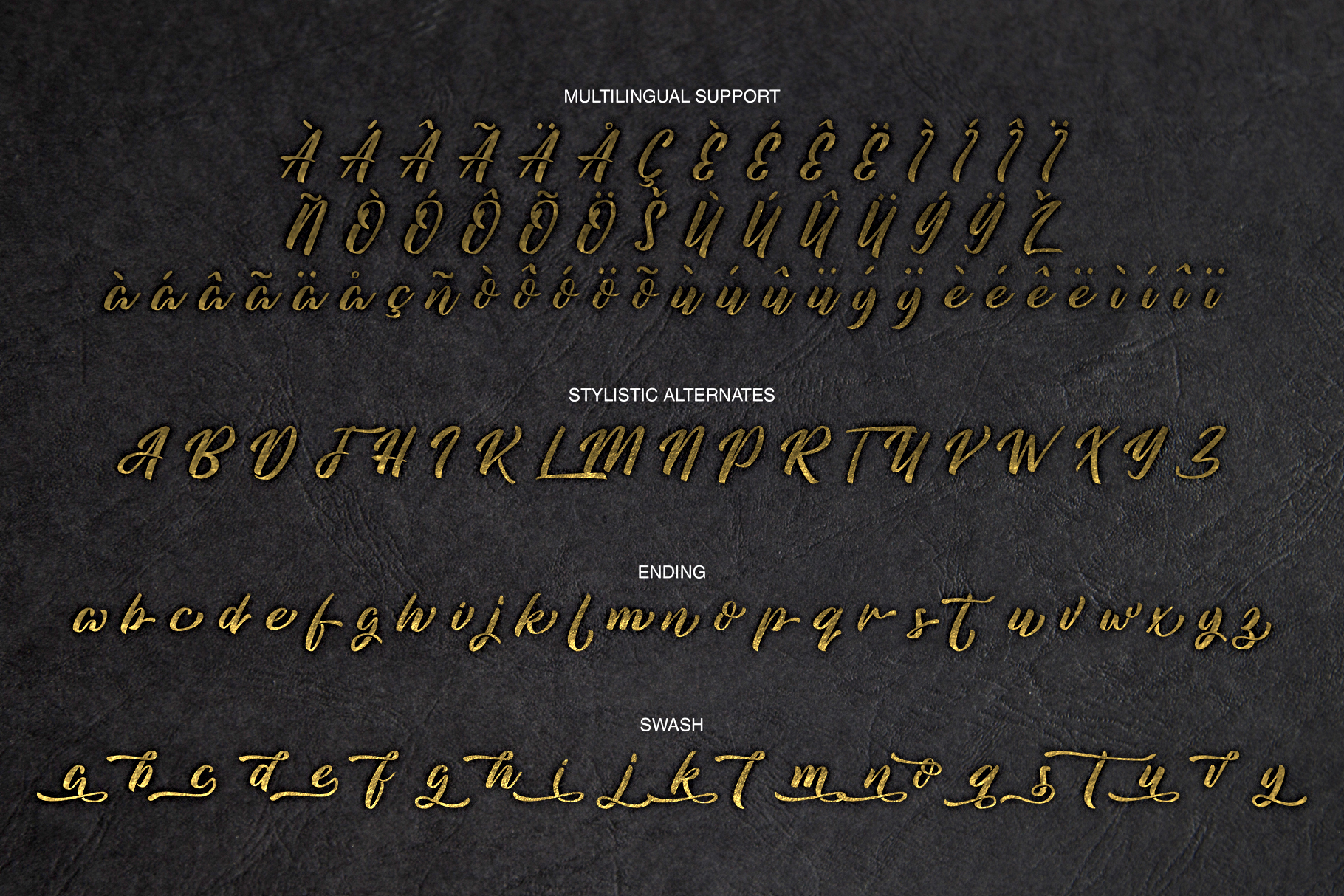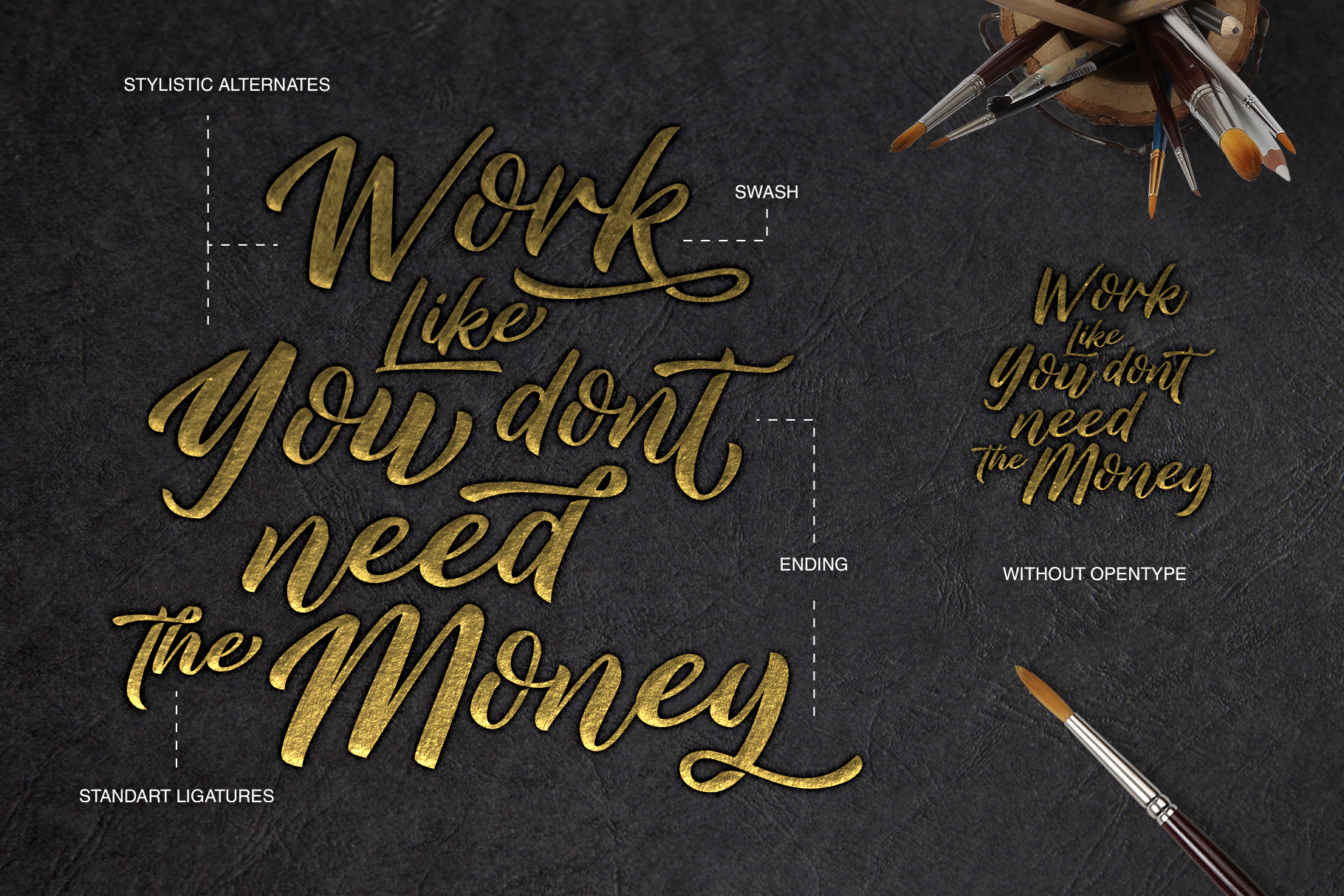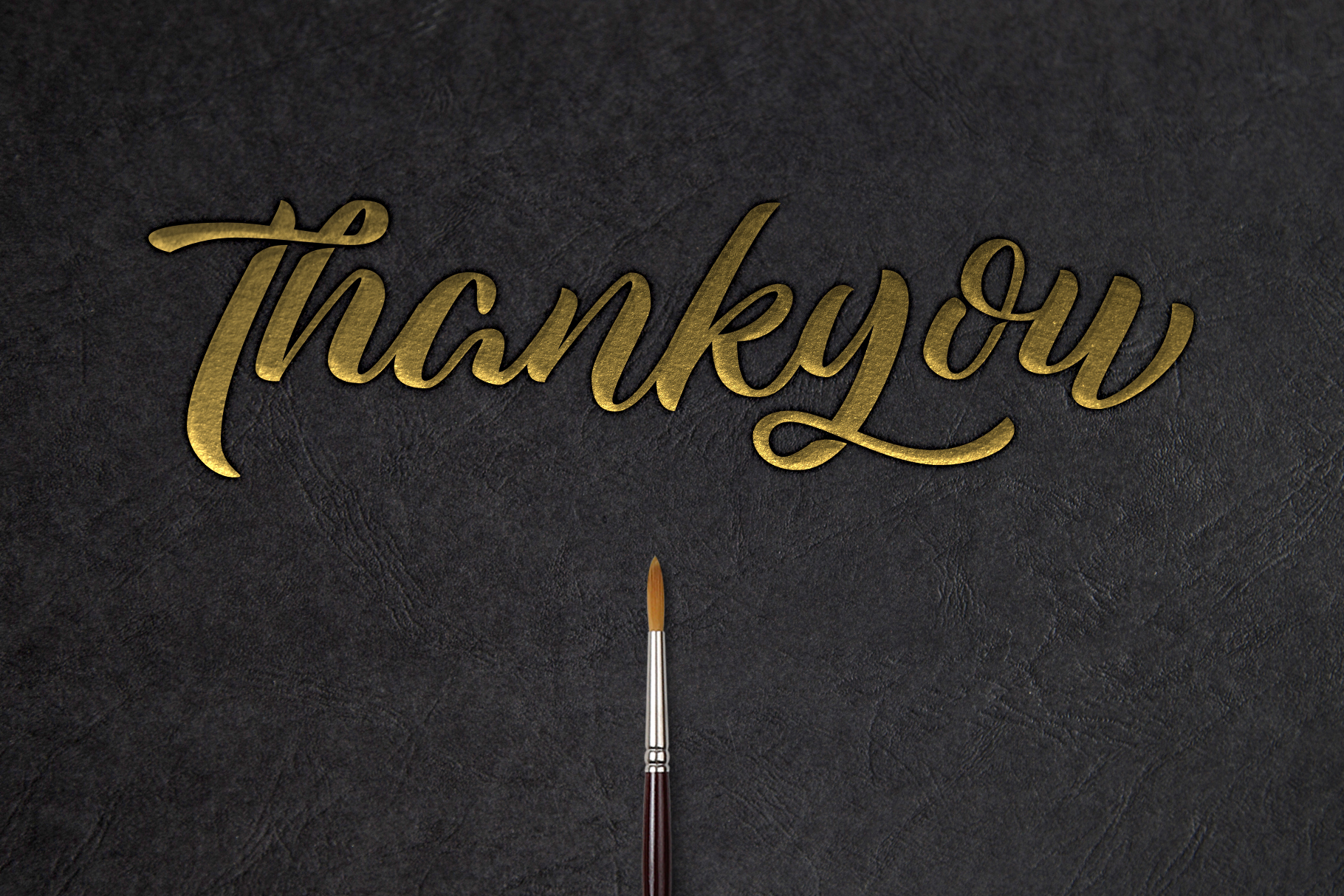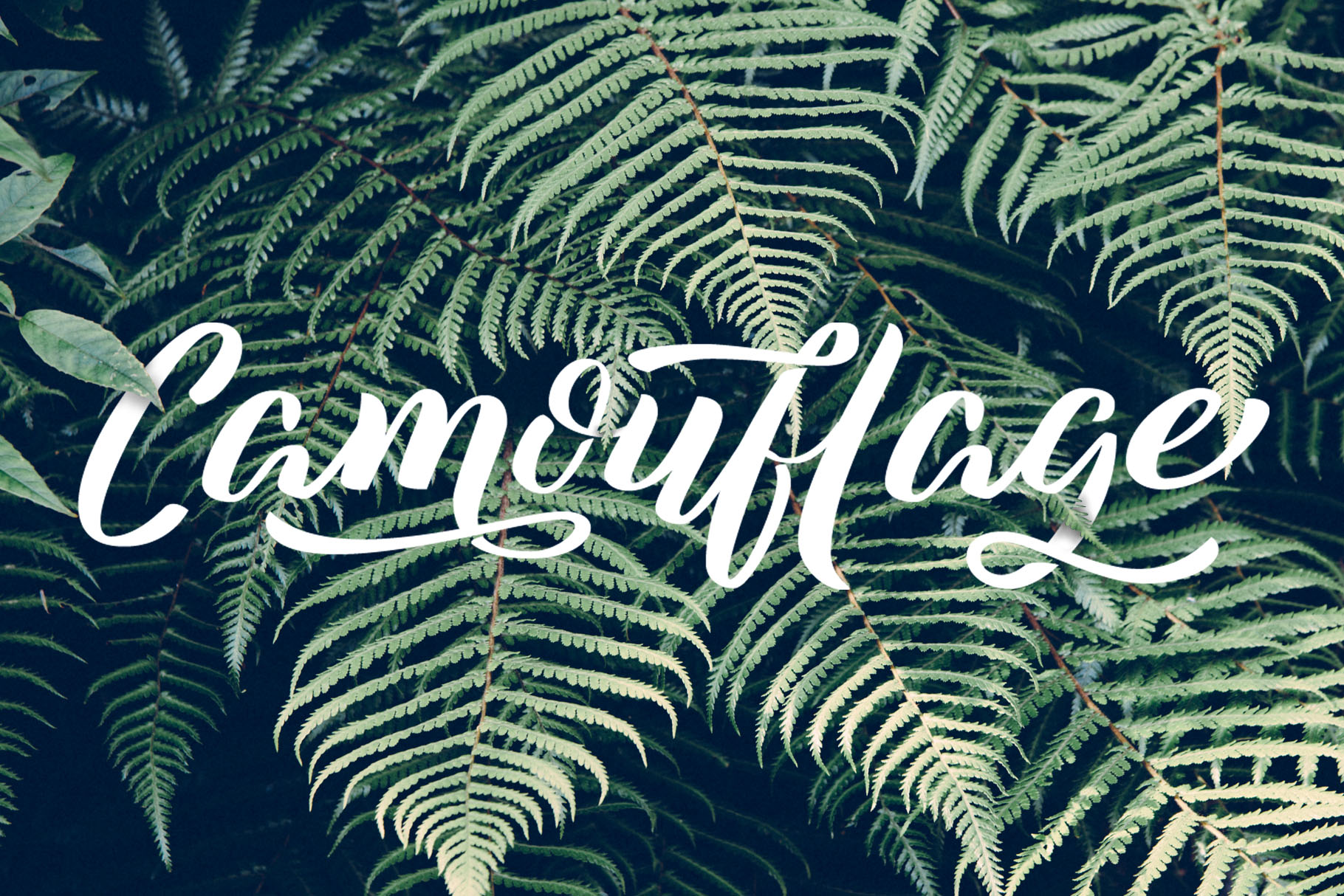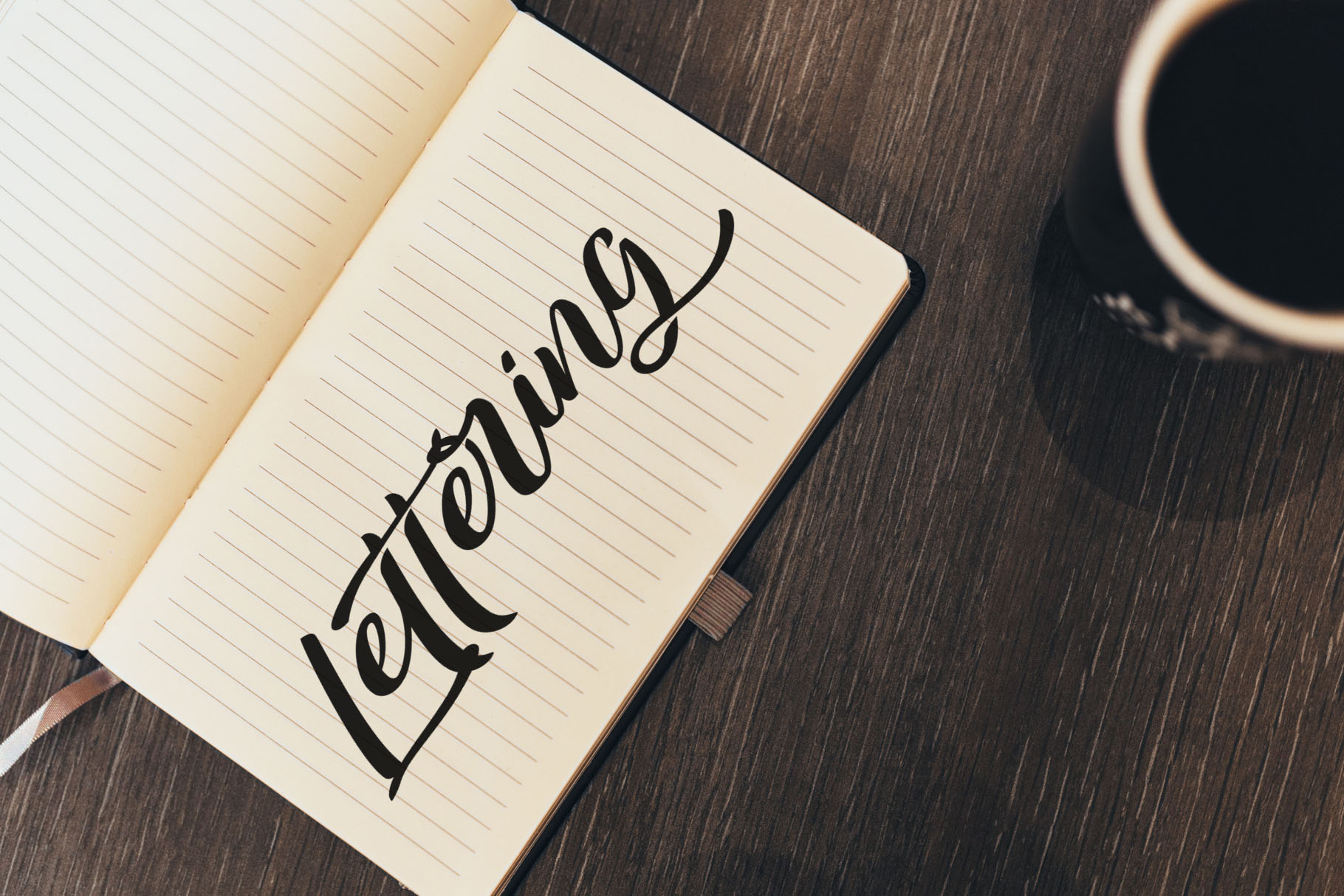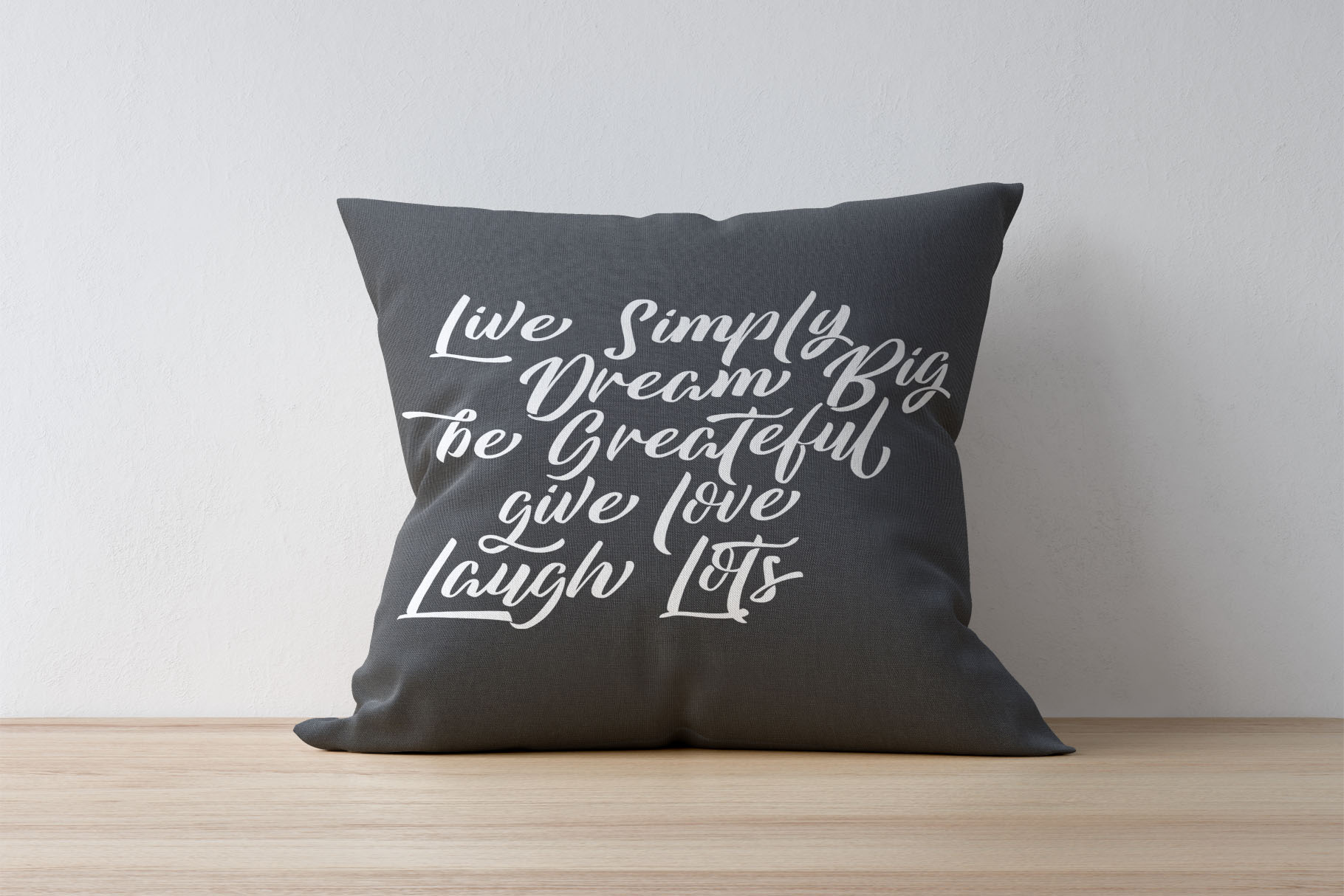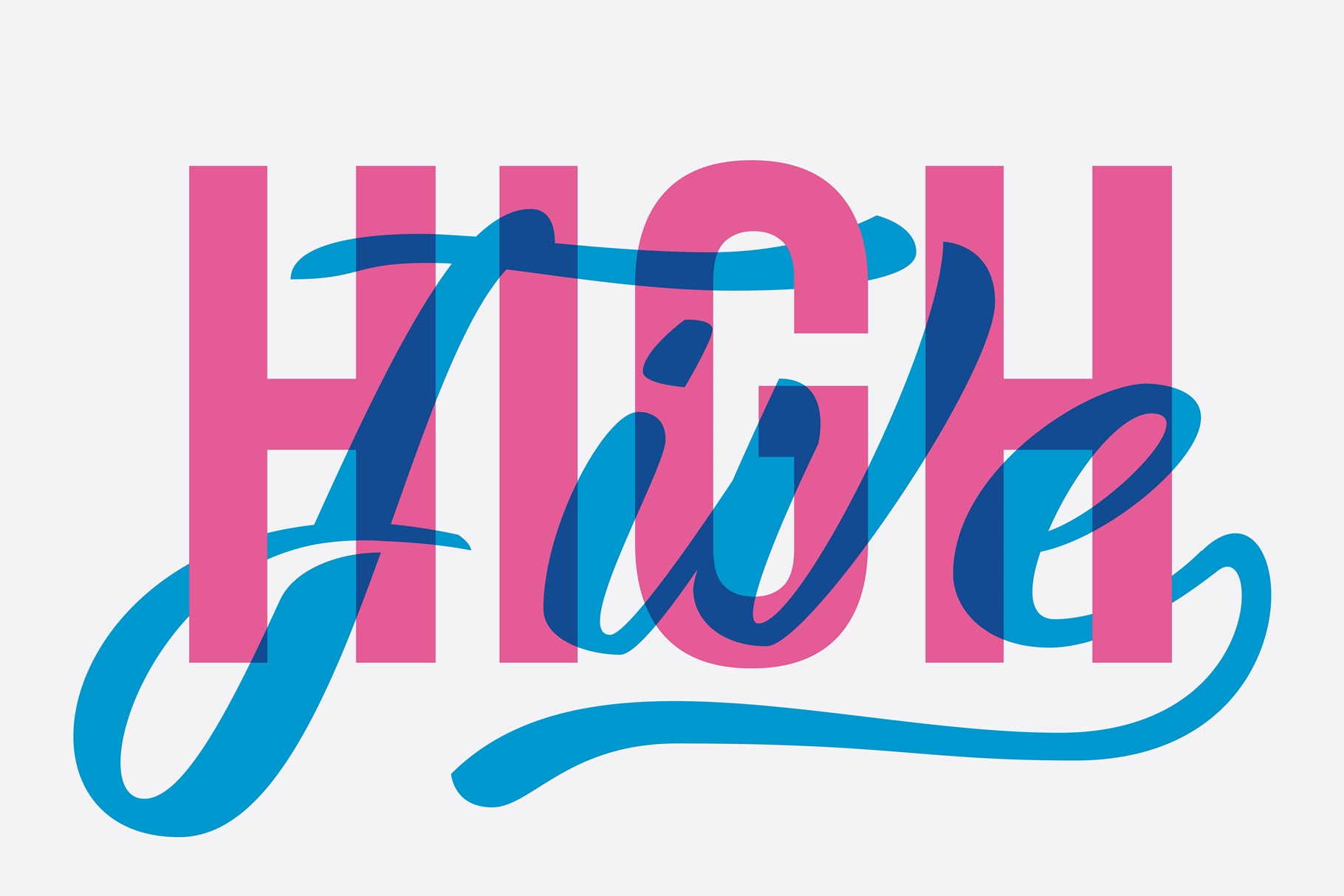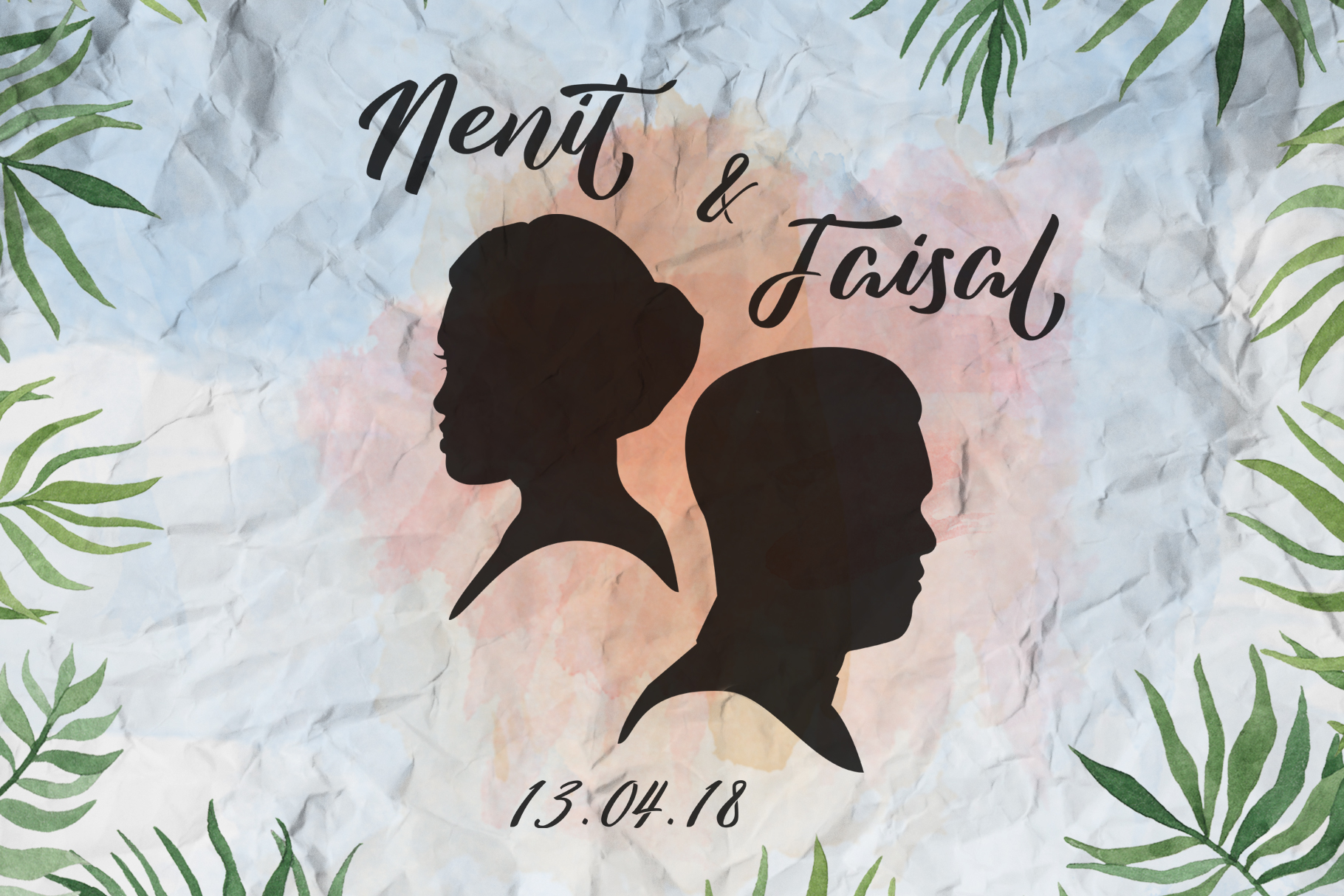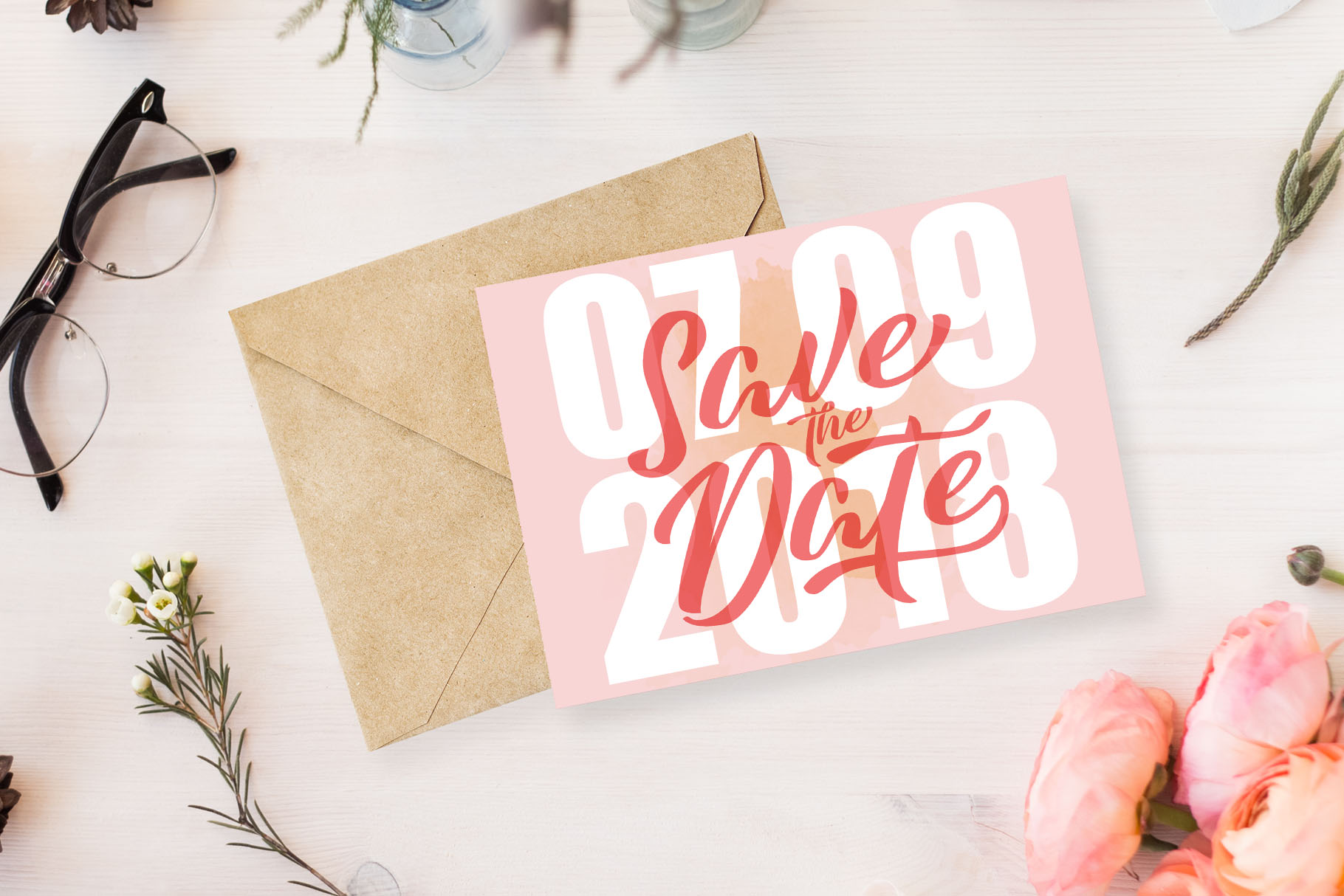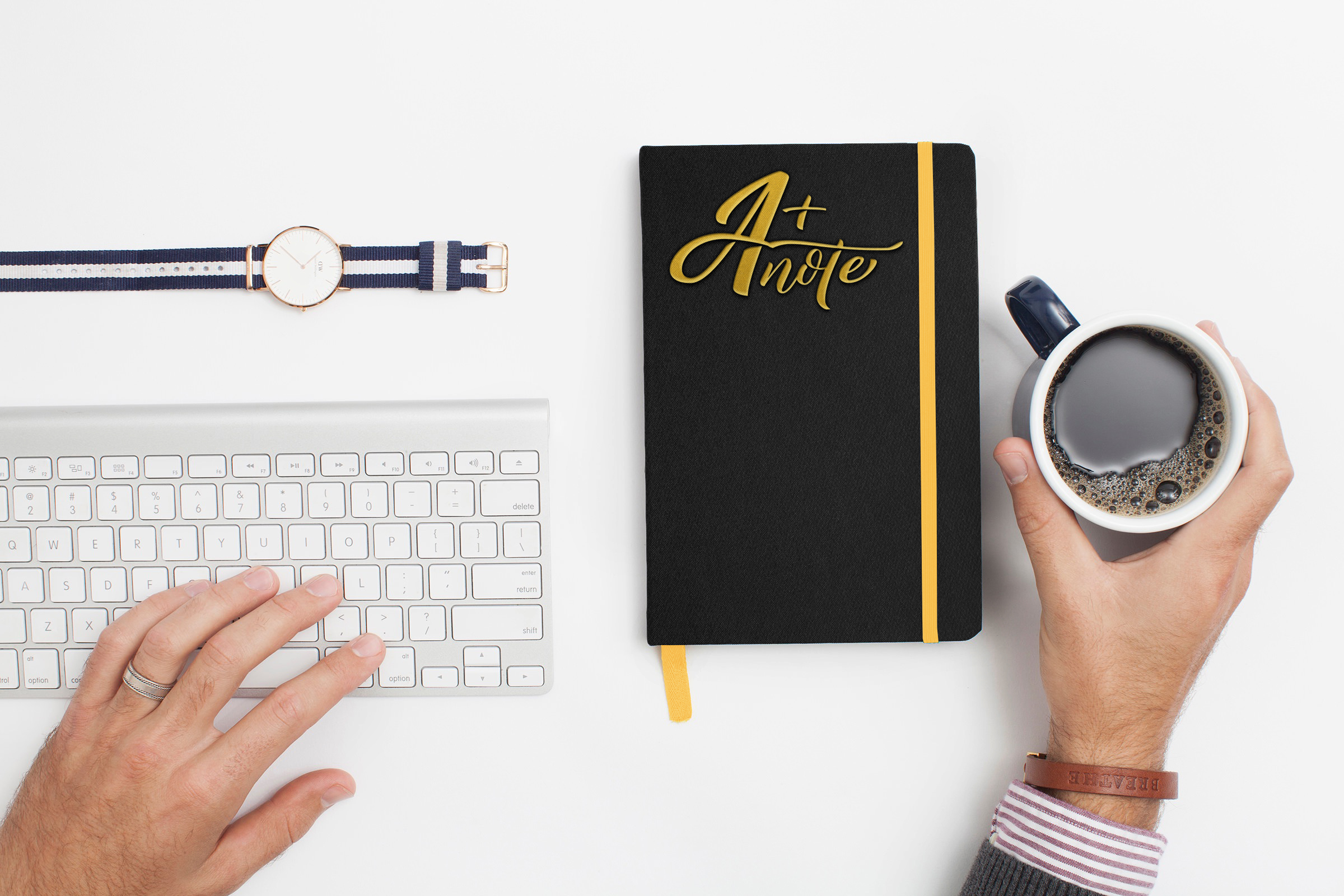
Azkasia Font
About Azkasia Font
Azkasia is a cool, painterly brushed letterscript that is perfect for displays and headline uses. This font comes with stylistic alternates so you can make completely customized and unique designs!